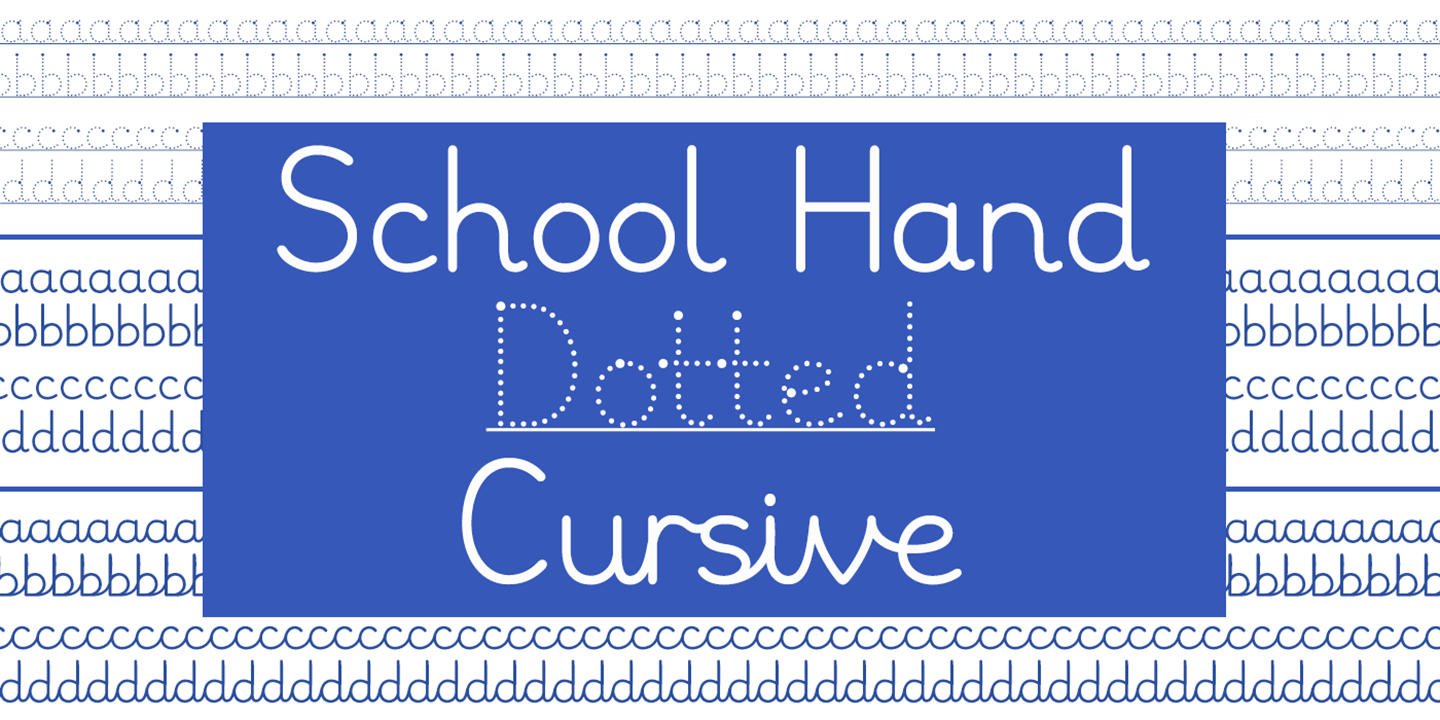
Looking for a casual and friendly handwritten font that captures the spirit of school days and creativity? School Hand Font Free Download is perfect for educational materials, kids’ projects, casual branding, and personal notes. Its playful, easy-to-read characters bring warmth and approachability to your designs.
Whether you’re designing classroom worksheets, kids’ party invitations, or friendly blog headers, School Hand Font Free Download adds that perfect handwritten touch.